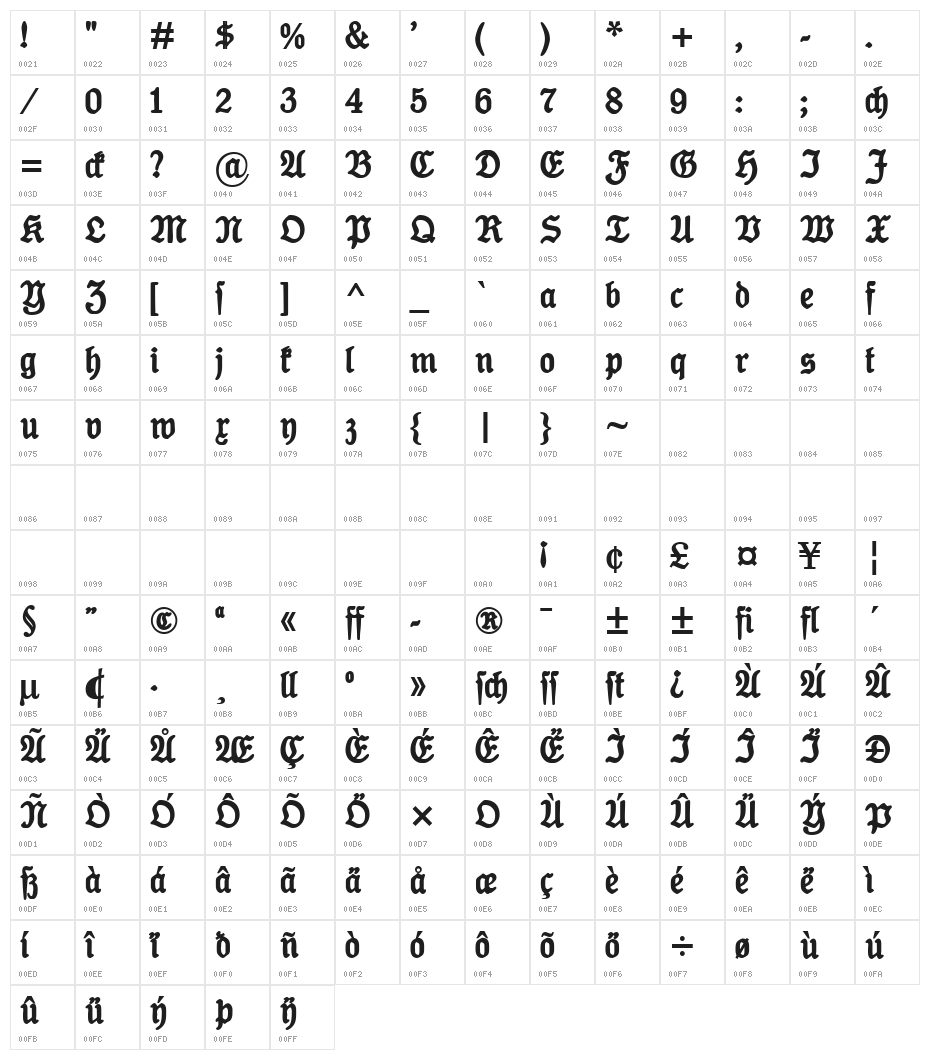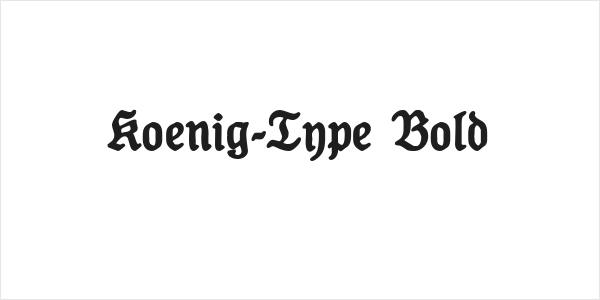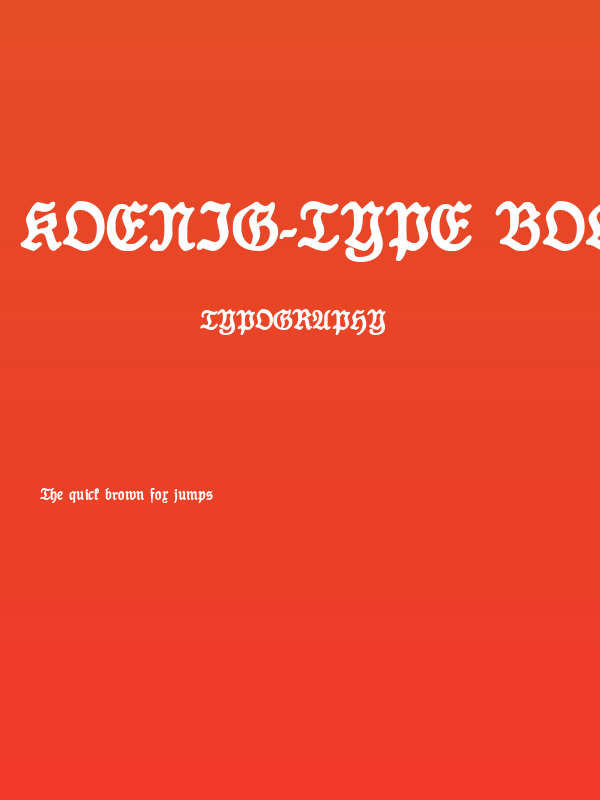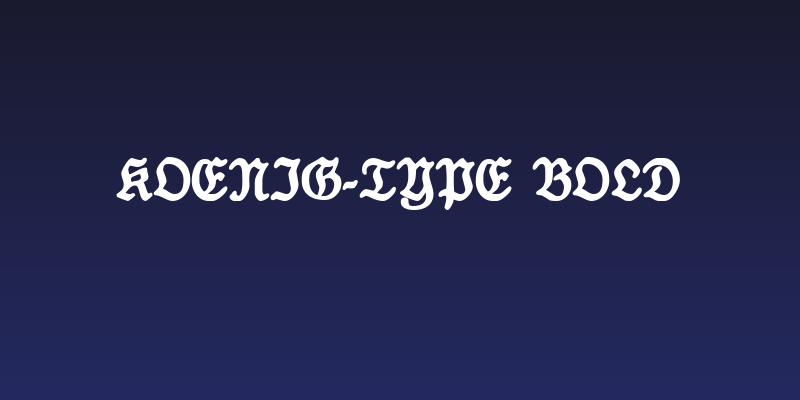
Koenig-Type Bold Font
Koenig-Type Bold Description
This font features a bold and striking blackletter style, characterized by its dramatic and intricate letterforms. The uppercase letters exhibit sharp, angular lines with pronounced serifs, while the lowercase letters maintain a consistent thickness, enhancing readability. The numerals are equally bold, with a strong presence that complements the overall aesthetic. Special characters are designed with the same attention to detail, ensuring a cohesive look across all glyphs. The font's historical and traditional appearance makes it ideal for projects that require a touch of elegance and formality.
Overall StyleVintage
Use CaseLogos, Headlines, Invitations
Proposed ProjectsSuitable for vintage-themed designs, formal invitations, branding for luxury products, and historical publications.